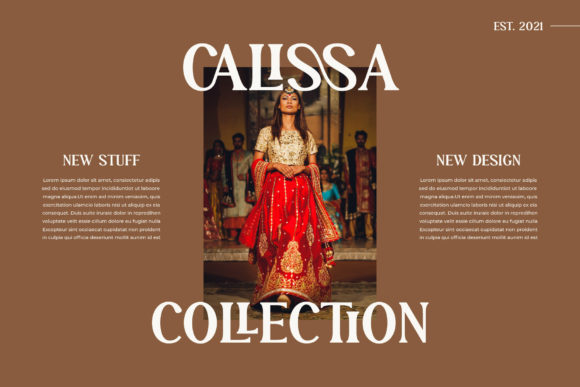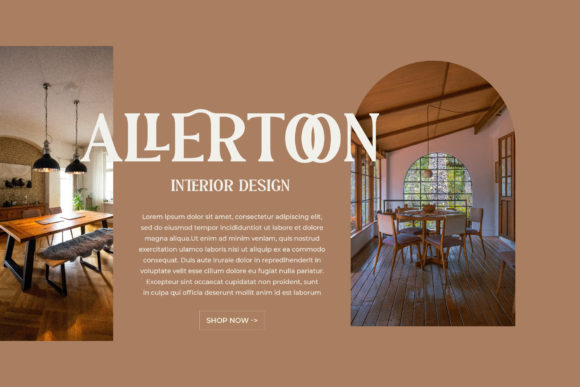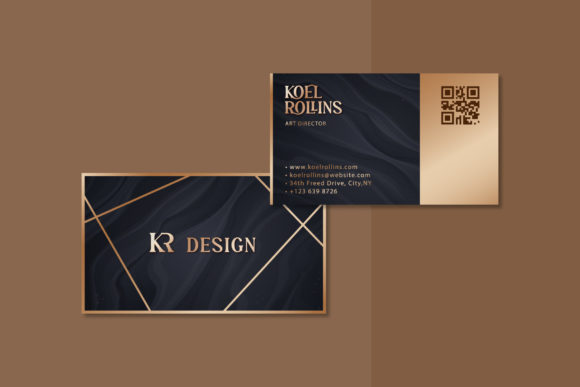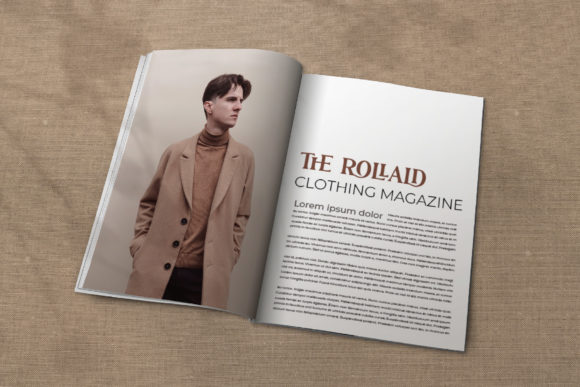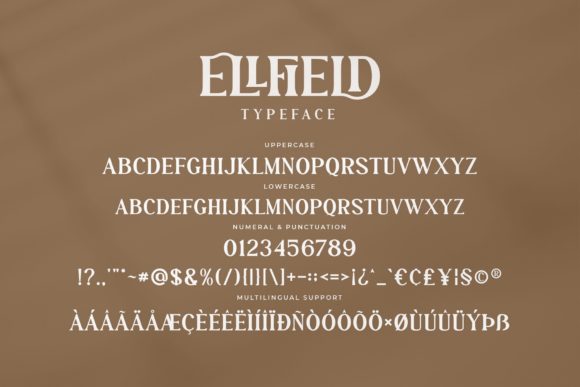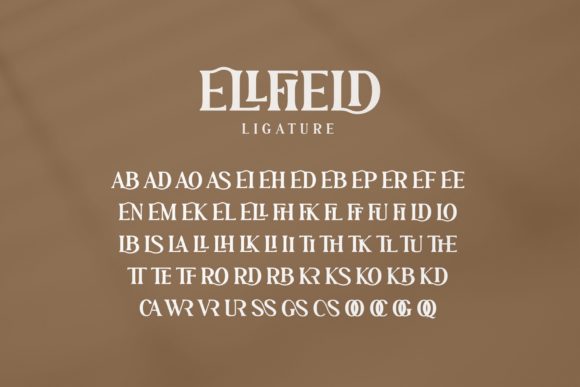
Introducing Ellfield Font: The Ultimate Modern Serif Font for Designers and Crafters
In the world of typography, a good font can make all the difference in creating stunning visual designs. If you’re a designer or crafter looking for a modern, bold, and thick lettered serif font, look no further than Ellfield Font. This impressive font is designed to take your creations to the next level, and in this article, we’ll explore its features, benefits, and uses.
What is Ellfield Font?
Ellfield Font is a modern, bold, and thick lettered serif font that is perfect for designers and crafters who want to add a touch of sophistication to their work. Its unique design features a distinctive serif style that sets it apart from other fonts. Whether you’re working on a logo, branding project, or craft design, Ellfield Font is sure to make a statement.
One of the standout features of Ellfield Font is its PUA (Private Use Area) encoding. This means that you can access all of the glyphs and swashes with ease, giving you maximum flexibility and creative control. With PUA encoding, you can easily navigate through the font’s extensive character set, including alternative letters, ligatures, and ornaments.
Key Features of Ellfield Font
- Modern and bold design: Ellfield Font features a sleek and contemporary design that’s perfect for creating eye-catching visuals.
- Thick lettered serif font: The font’s thick lettering and serif style give it a distinctive look that’s sure to grab attention.
- Extensive character set: With a wide range of characters, including alternative letters, ligatures, and ornaments, you can create unique and complex designs.
Benefits of Using Ellfield Font
So why choose Ellfield Font for your design projects? Here are just a few benefits of using this amazing font:
- Stand out from the crowd: With its bold and modern design, Ellfield Font is sure to make your designs stand out from the competition.
- Versatile: Ellfield Font is perfect for a wide range of design projects, from logos and branding to craft designs and more.
- High-quality design: The font is designed to the highest standards, ensuring that your designs look professional and polished.
How to Use Ellfield Font in Your Designs
Using Ellfield Font in your designs is easy. Here are a few tips to get you started:
- Pair it with other fonts: Ellfield Font pairs well with a range of other fonts, so don’t be afraid to experiment and find the perfect combination for your design.
- Experiment with glyphs and swashes: With its extensive character set, Ellfield Font offers endless possibilities for creative expression. Take some time to explore the glyphs and swashes and see what you can create.
- Use it for headlines and titles: Ellfield Font is perfect for headlines and titles, where its bold and modern design can really make an impact.